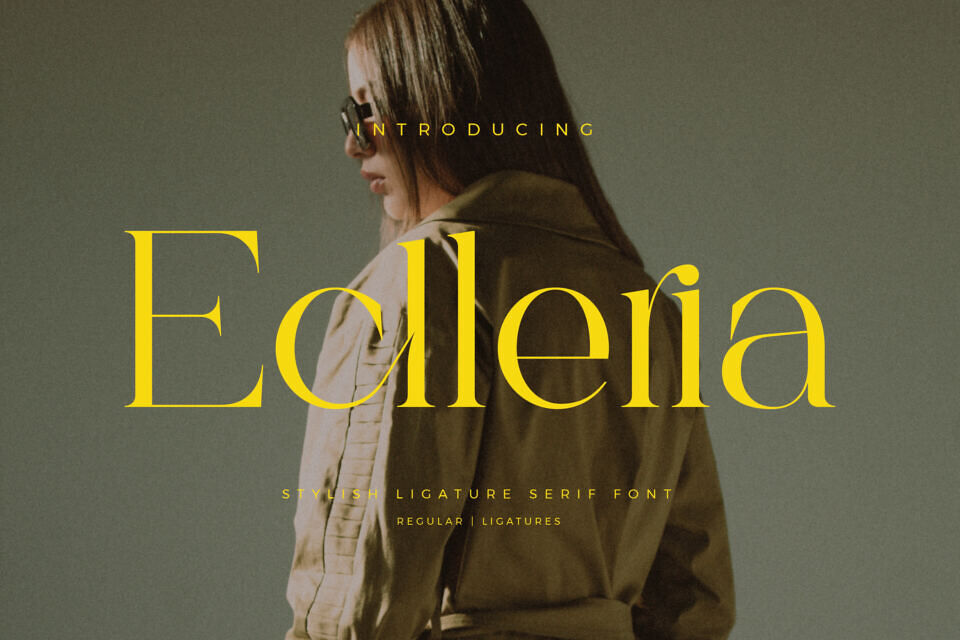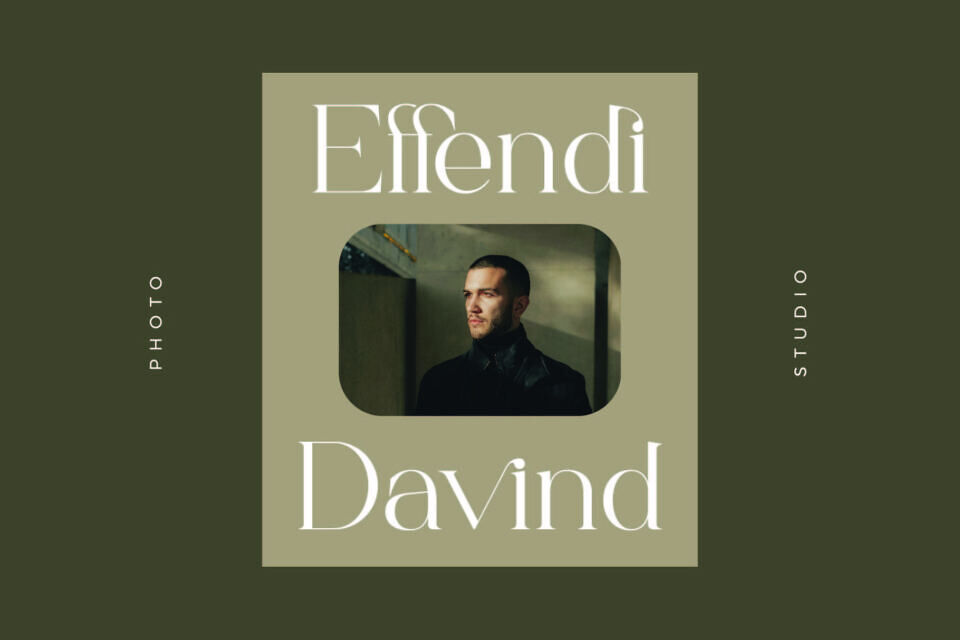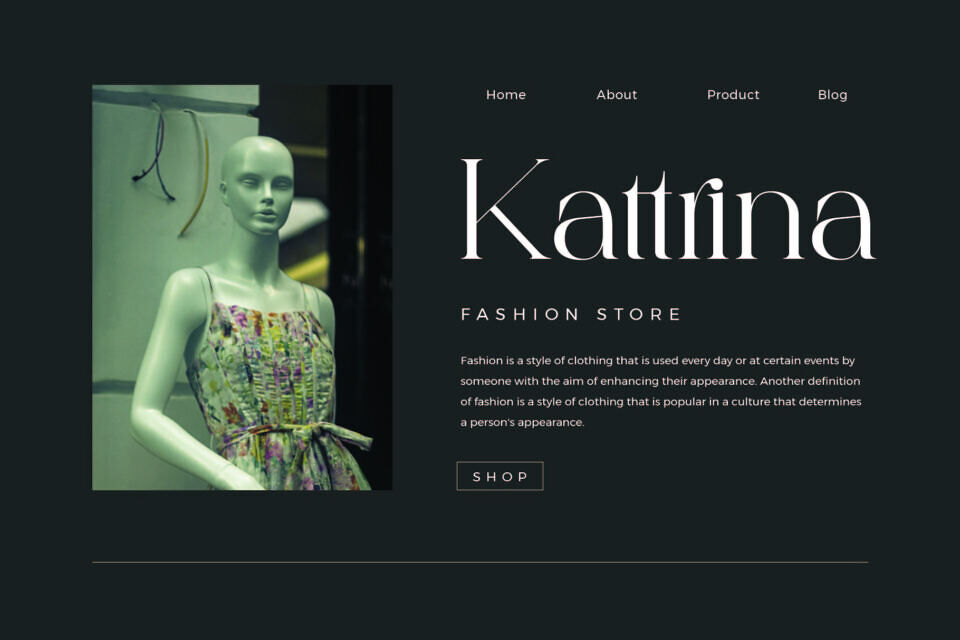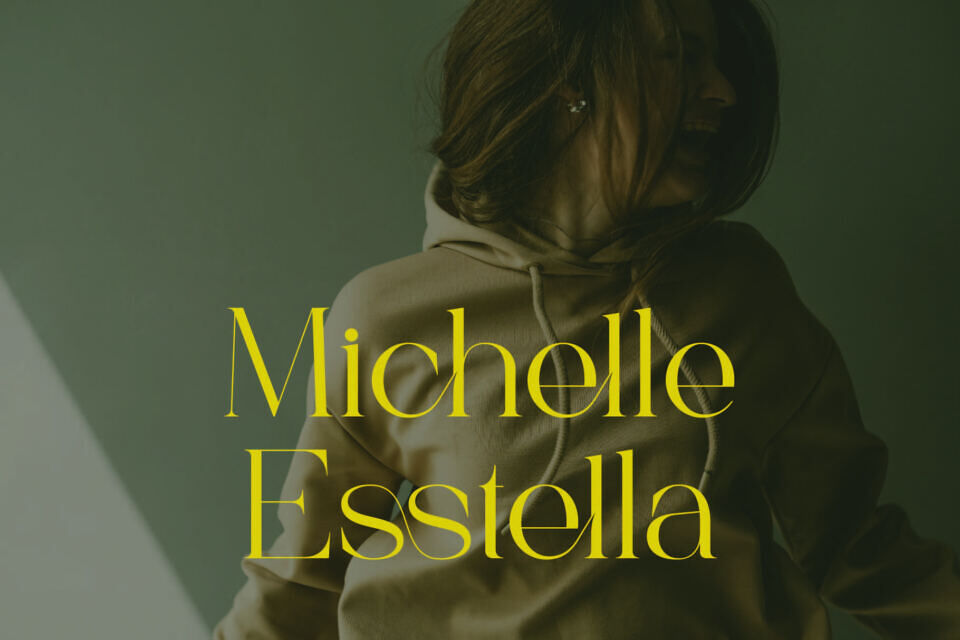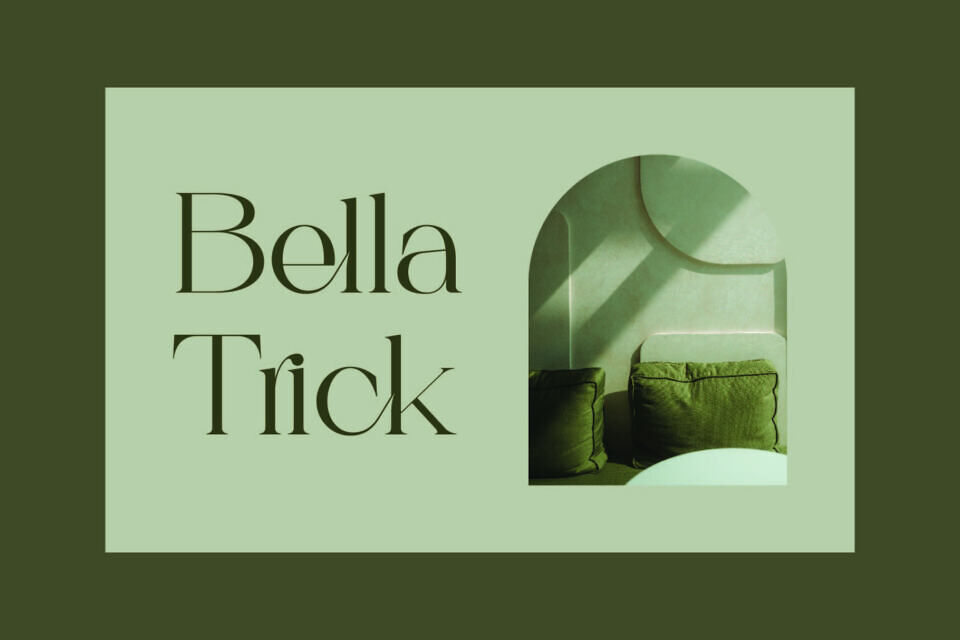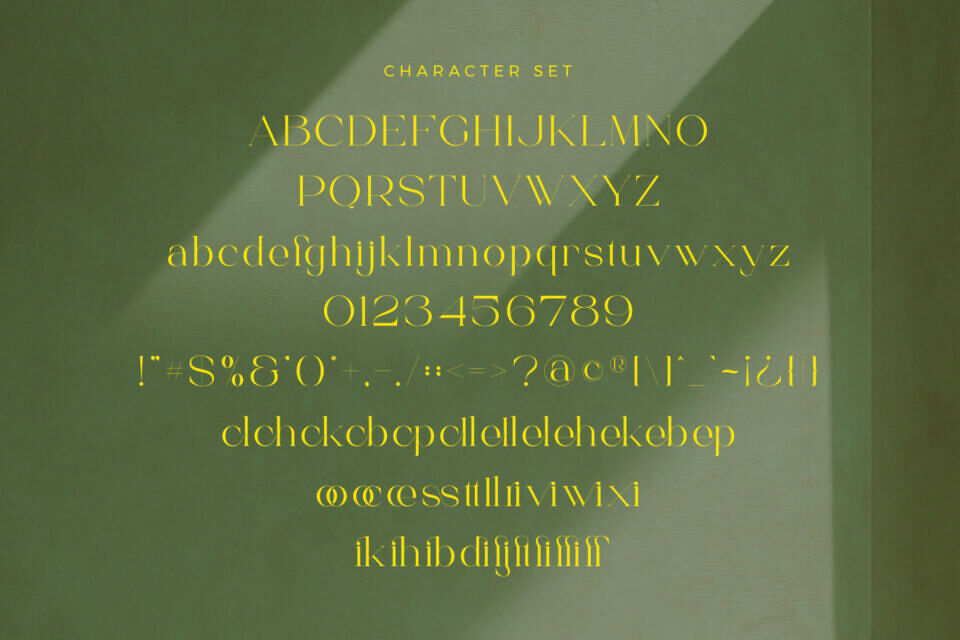
Eclleria Font
Eclleria is a stylish serif ligature typeface designed for modern elegance. Inspired by minimalist logo aesthetics, it features sophisticated ligatures and clean lines, making it ideal for branding, brochures, and high-end advertising.
Whether you’re creating a chic logo or a professional template, Eclleria provides a classy, timeless appeal that elevates any creative project with its unique and refined character.